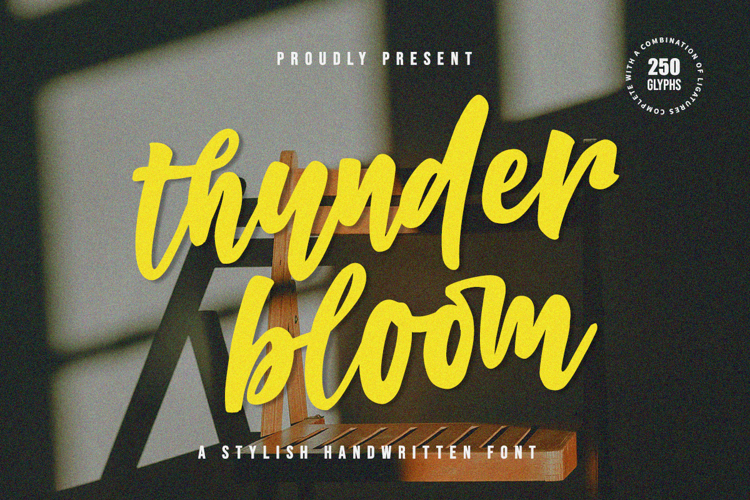
Thunder Bloom is a bold and expressive handwritten script font that captures a natural brush style with a modern twist. Its flowing letterforms, smooth curves, and slightly textured strokes create an energetic and dynamic feel, making it perfect for eye-catching designs. The font balances elegance and playfulness, giving it strong personality while remaining highly readable. Ideal for branding, logos, social media graphics, posters, and packaging, Thunder Bloom adds a warm, handcrafted touch to any project. With its stylish ligatures and extensive glyph set, it offers flexibility for creative typography and unique lettering compositions.